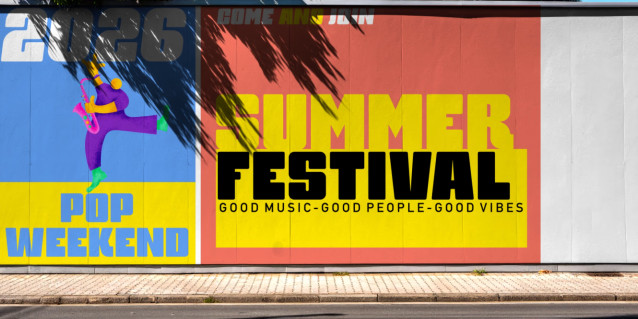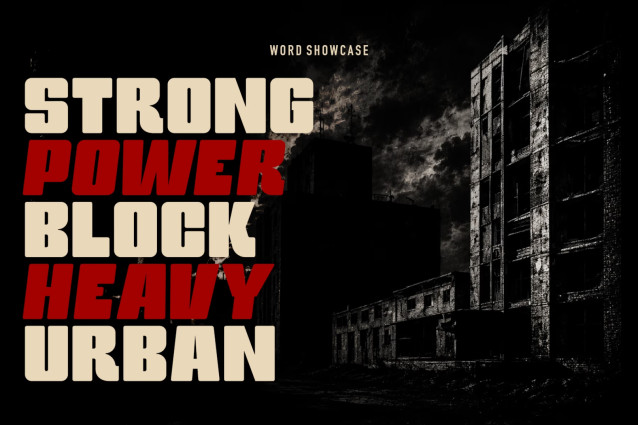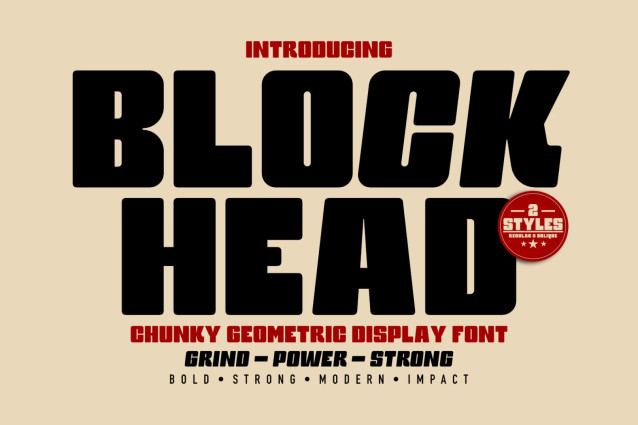
Block Head – Geometric Display Font
Block Head – Chunky Geometric Display Font
Block head is a chunky, geometric display typeface that commands attention with its heavy, solid construction. Characterized by ultra-thick strokes and minimal negative space, this font delivers a powerful, blocky texture that is both modern and retro. Its letterforms feature slightly rounded outer corners paired with sharp, industrial inner angles, creating a balanced yet aggressive visual rhythm.
Available in two complementary styles — Regular and Oblique — Block Head offers both stability and dynamism. The Regular style provides a solid, authoritative foundation, while the Oblique version adds energy and movement, allowing designers to create contrast and hierarchy within a single word or layout.
Crafted with a modern yet timeless approach, Block Head balances heavy proportions with clean geometric precision. The result is a typeface that feels strong, contemporary, and highly versatile — perfect for projects that require a sense of power, confidence, and modernity.